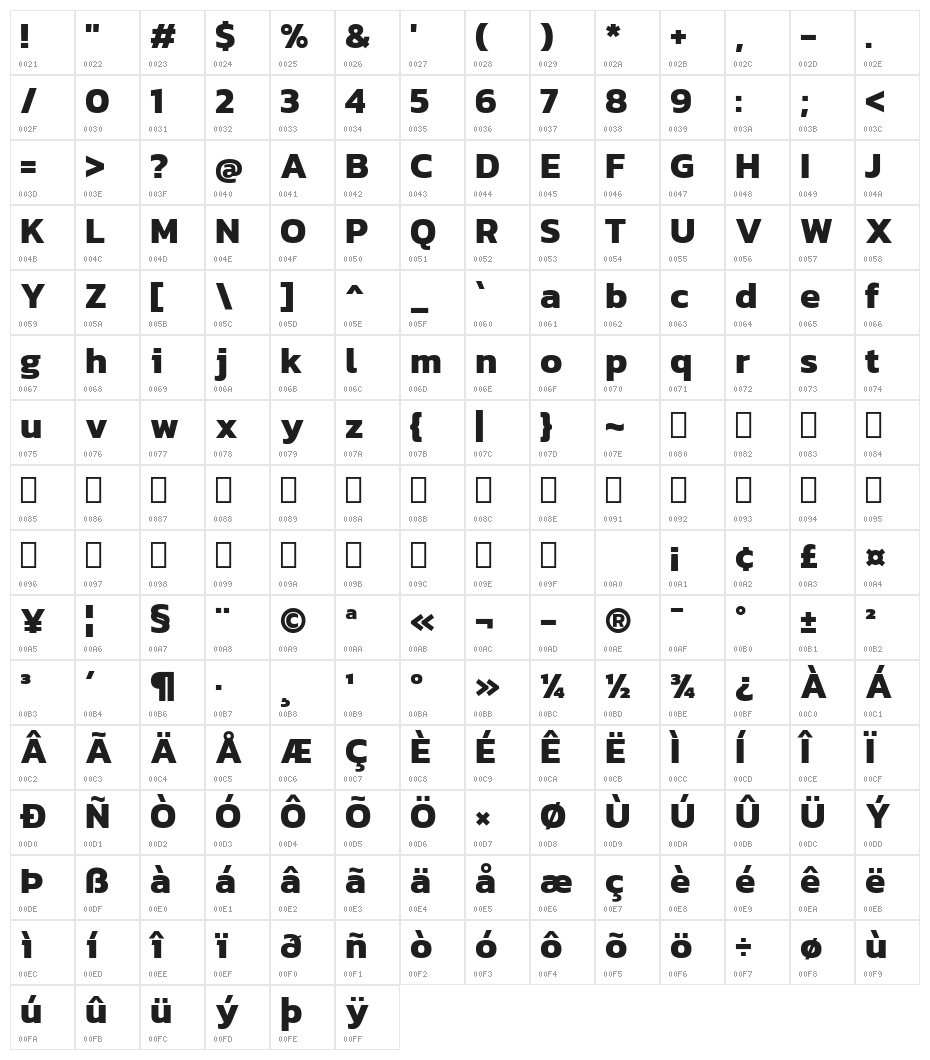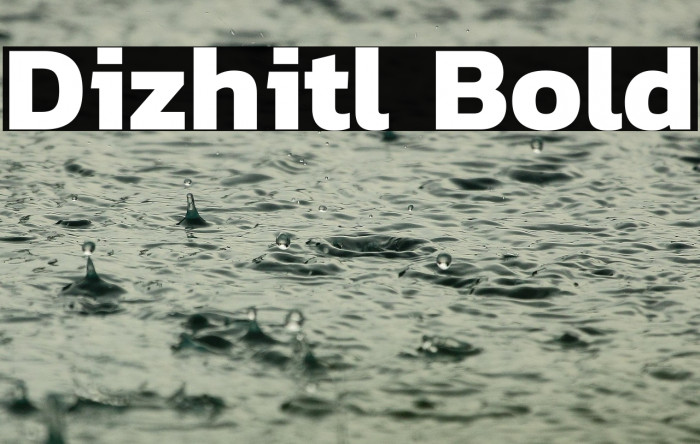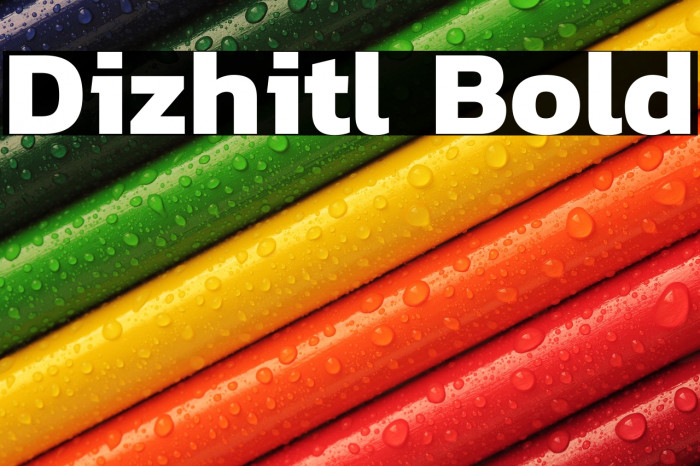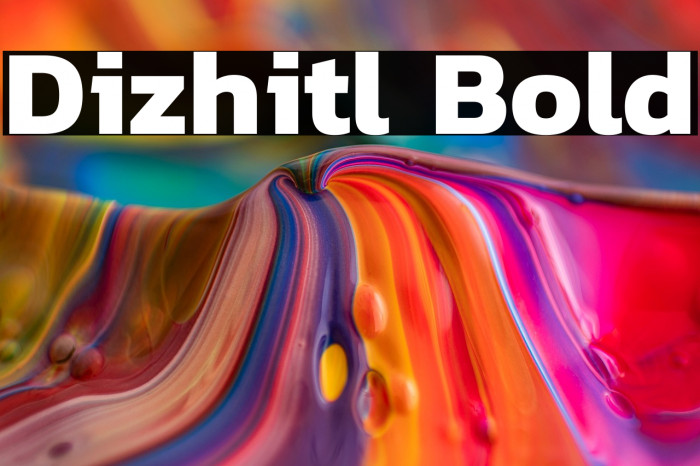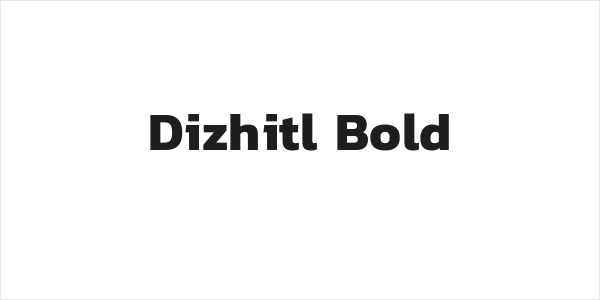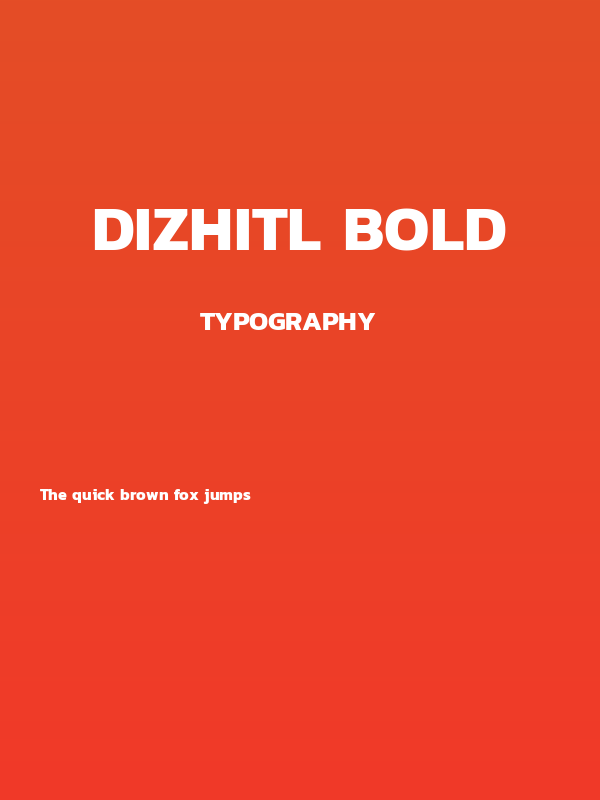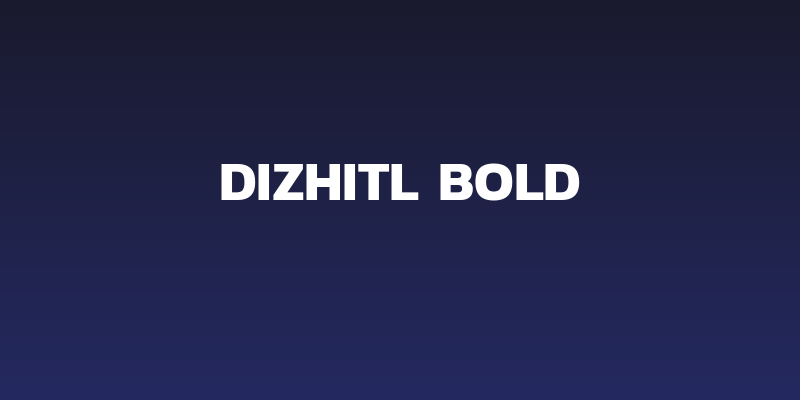
Dizhitl Bold Font
Dizhitl Bold Description
This bold typeface features strong, thick strokes that convey a sense of power and authority. The characters are well-defined with clean lines, making them highly legible even at smaller sizes. The uppercase letters are uniform in height, while the lowercase letters maintain a consistent x-height, contributing to a balanced appearance. The numerals are robust and align perfectly with the overall style, ensuring clarity in numerical data. Special characters are distinct and integrate seamlessly with the alphabet, enhancing the font's versatility. The overall design is modern and impactful, suitable for a variety of applications.
| Proposed Projects | Ideal for branding, advertising, headlines, and any project requiring a strong visual impact. |